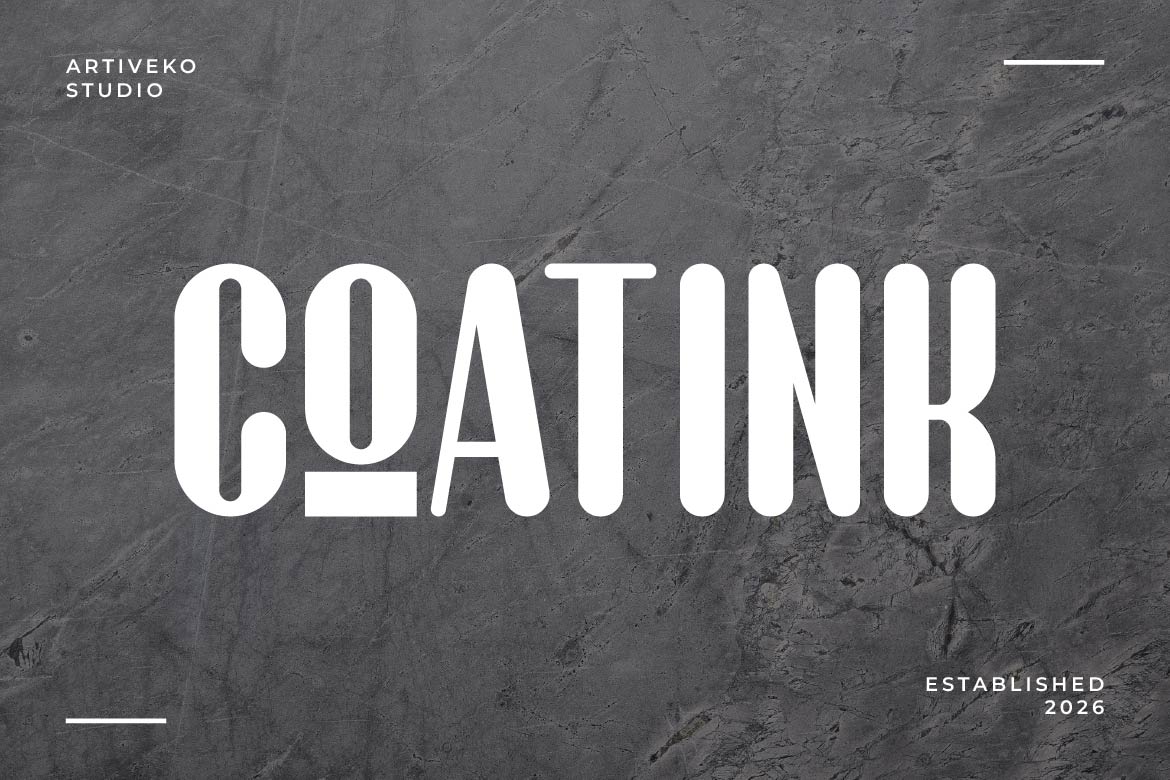
- Coatlink – Rounded Condensed Typeface
Coatlink is a rounded condensed typeface that combines modern minimalism with a friendly, approachable character. Featuring smooth curves, compact proportions, and clean geometric construction, Coatlink creates a distinctive visual style that’s both space-efficient and highly memorable.
Designed for branding, logos, packaging, posters, editorial headlines, mobile apps, websites, and social media content, Coatlink offers exceptional versatility across print and digital media. Its condensed width maximizes impact in tight layouts, while the rounded terminals add warmth and personality, making it ideal for modern brands that want to feel professional yet inviting.
Whether you’re creating a startup identity, product packaging, café branding, or contemporary marketing materials, Coatlink delivers a balanced combination of clarity, style, and originality.
Coatlink isn’t just a typeface—it’s a modern rounded voice that helps brands connect with confidence.